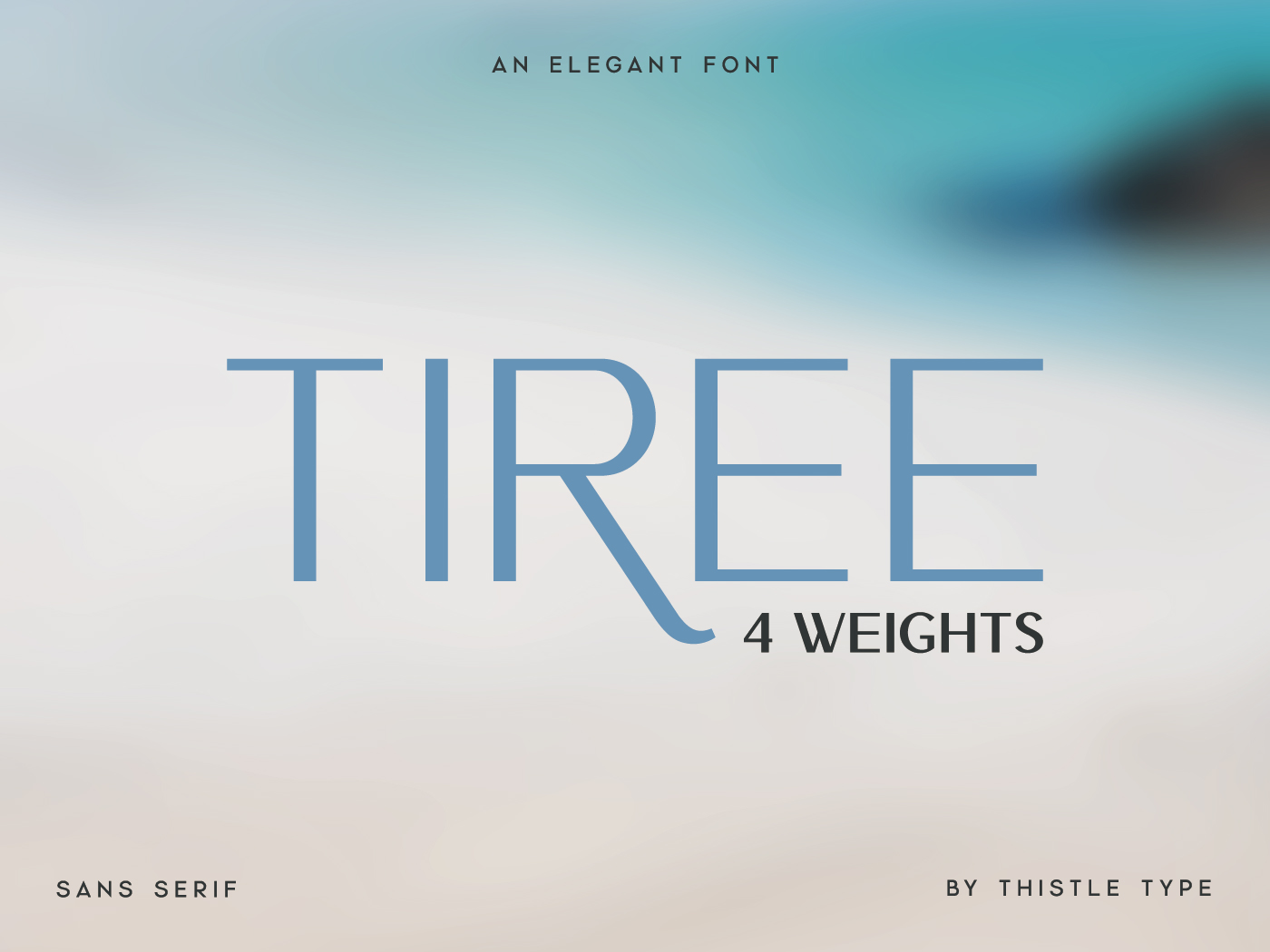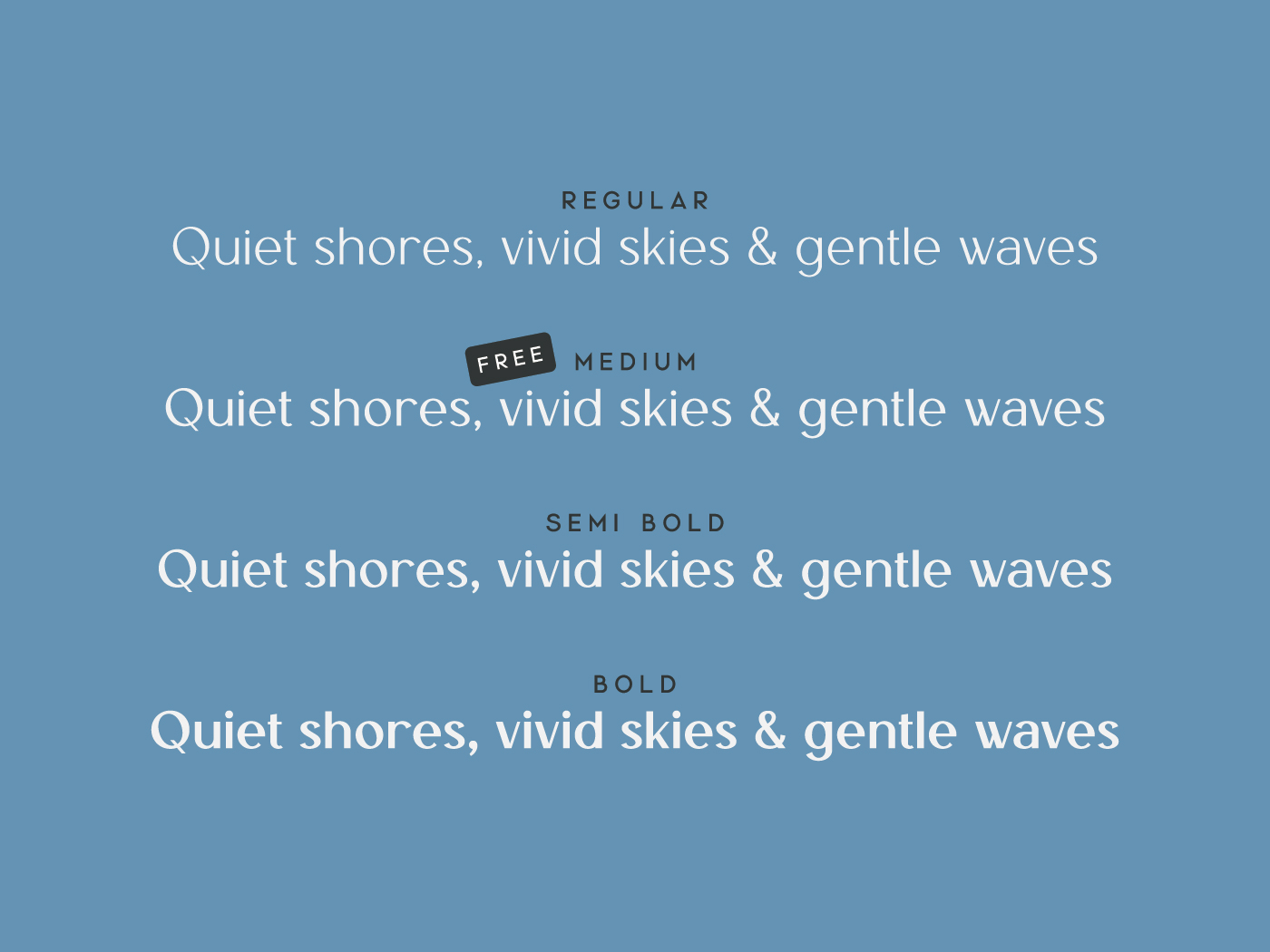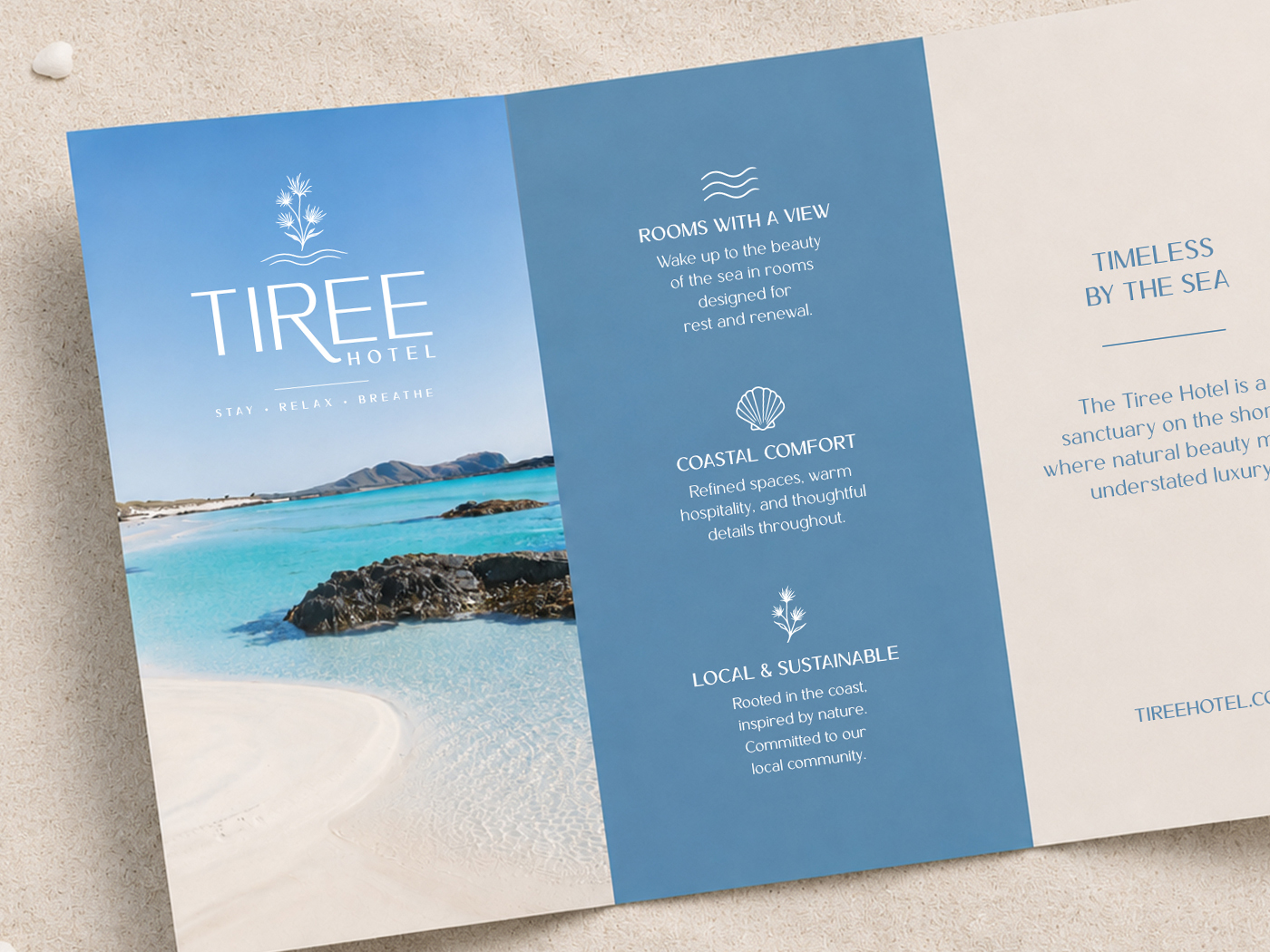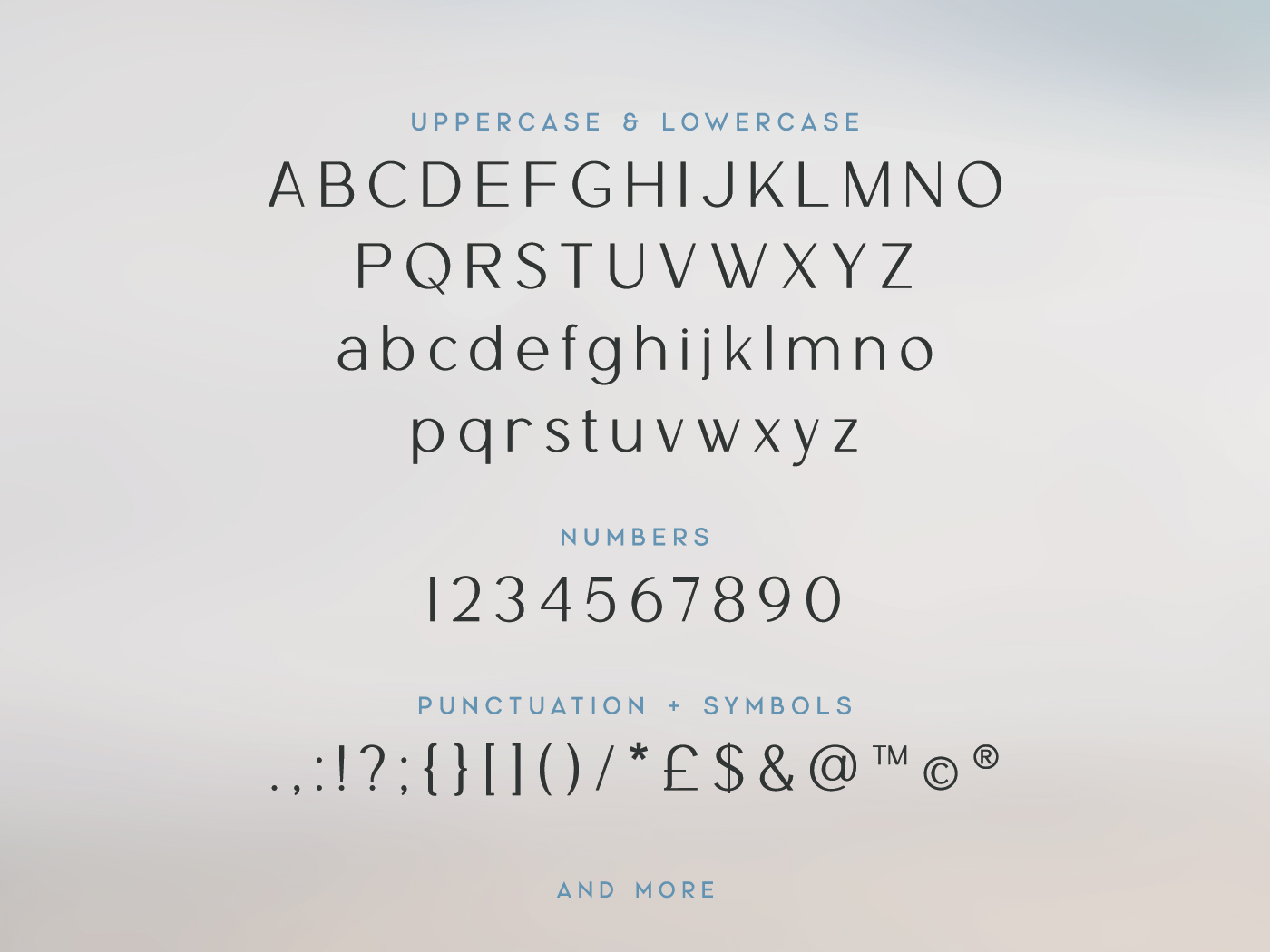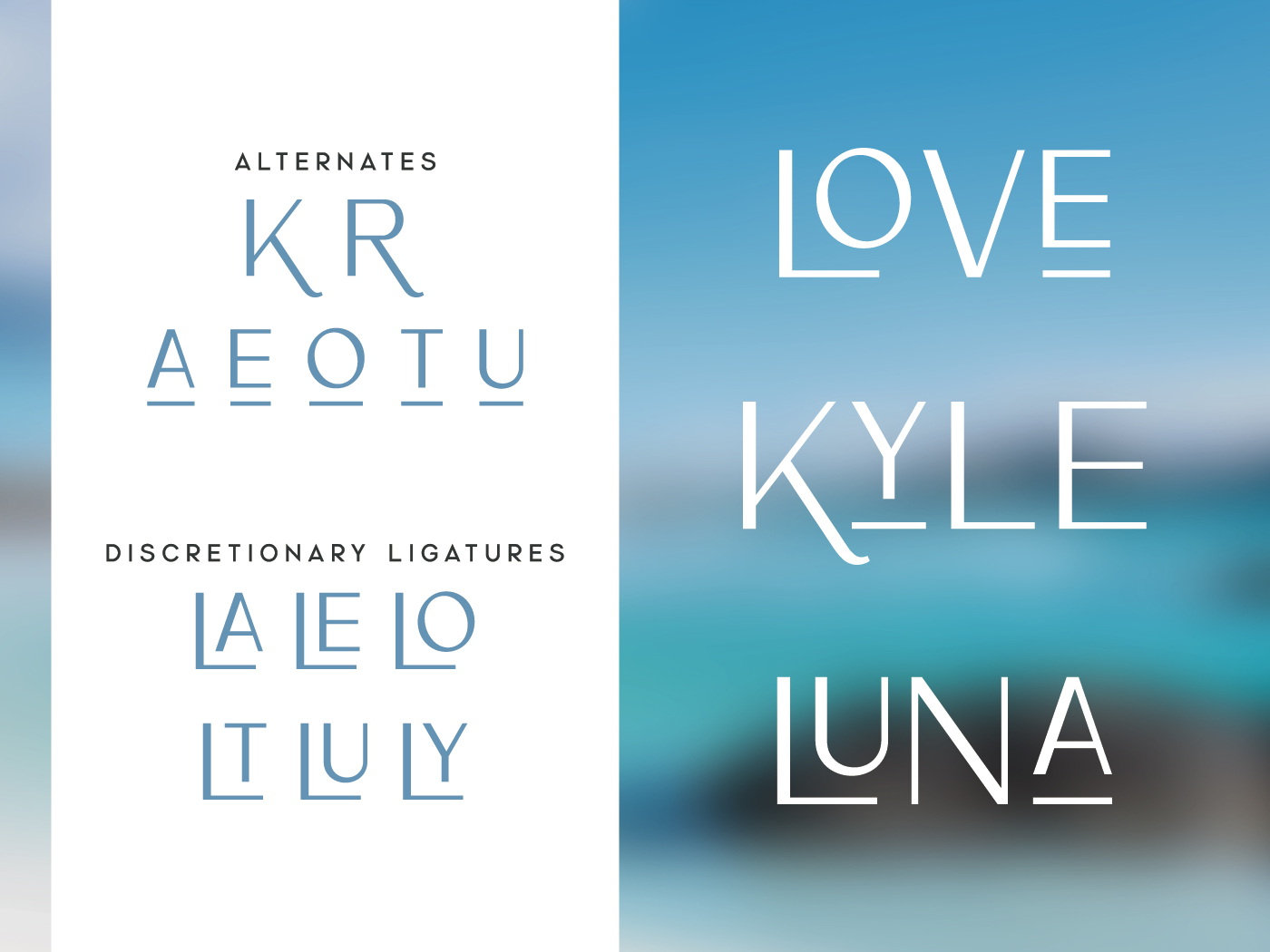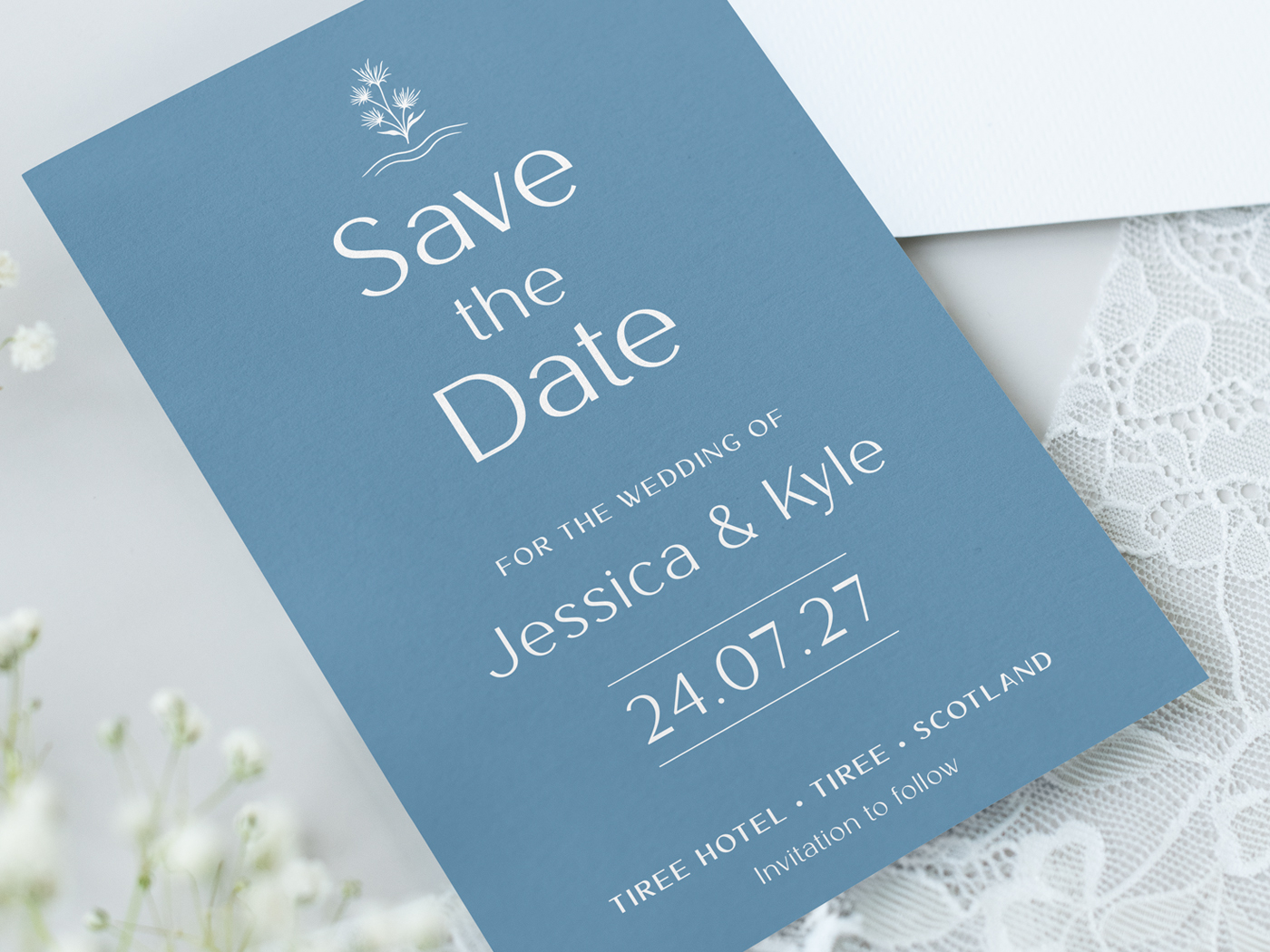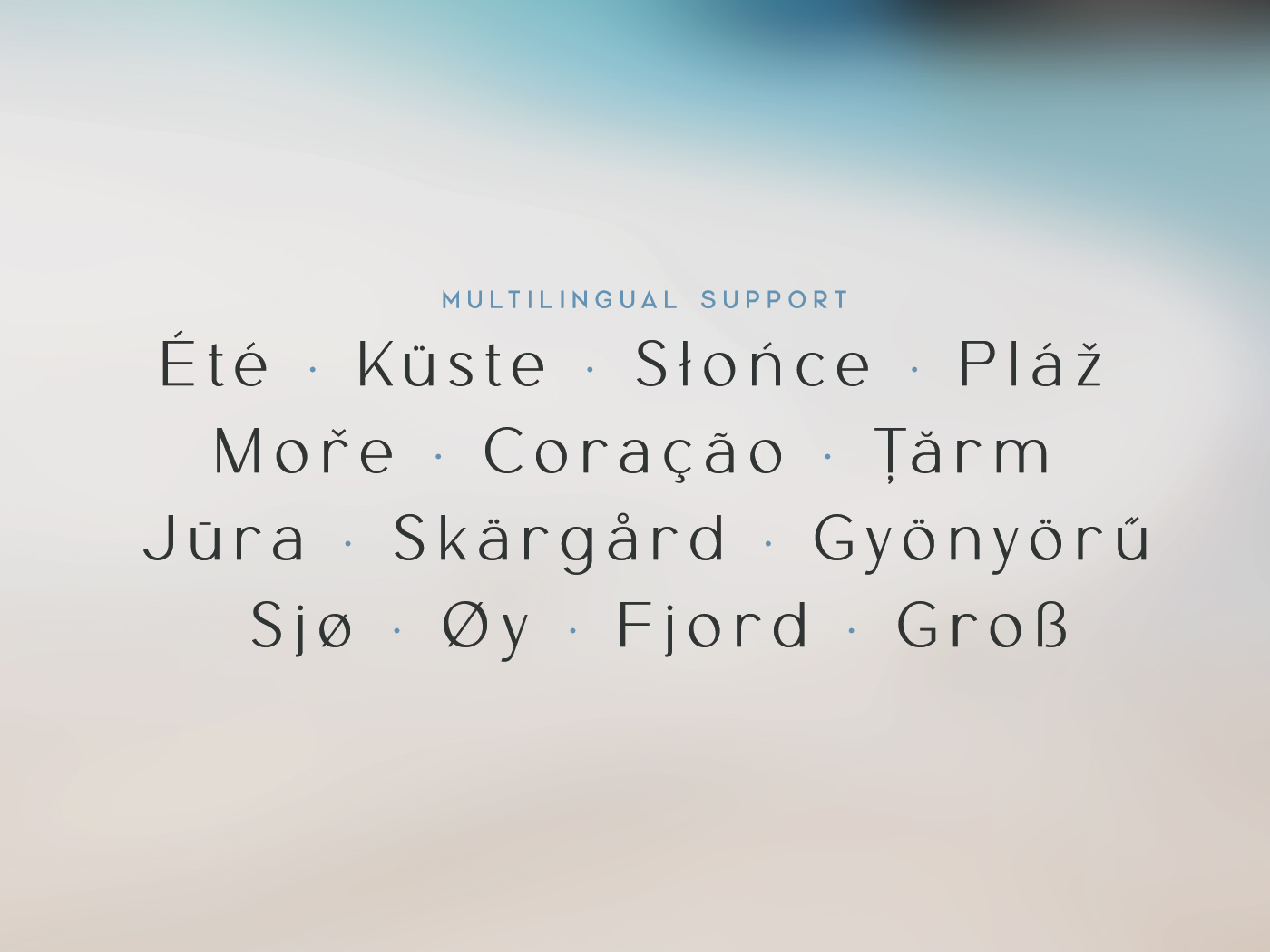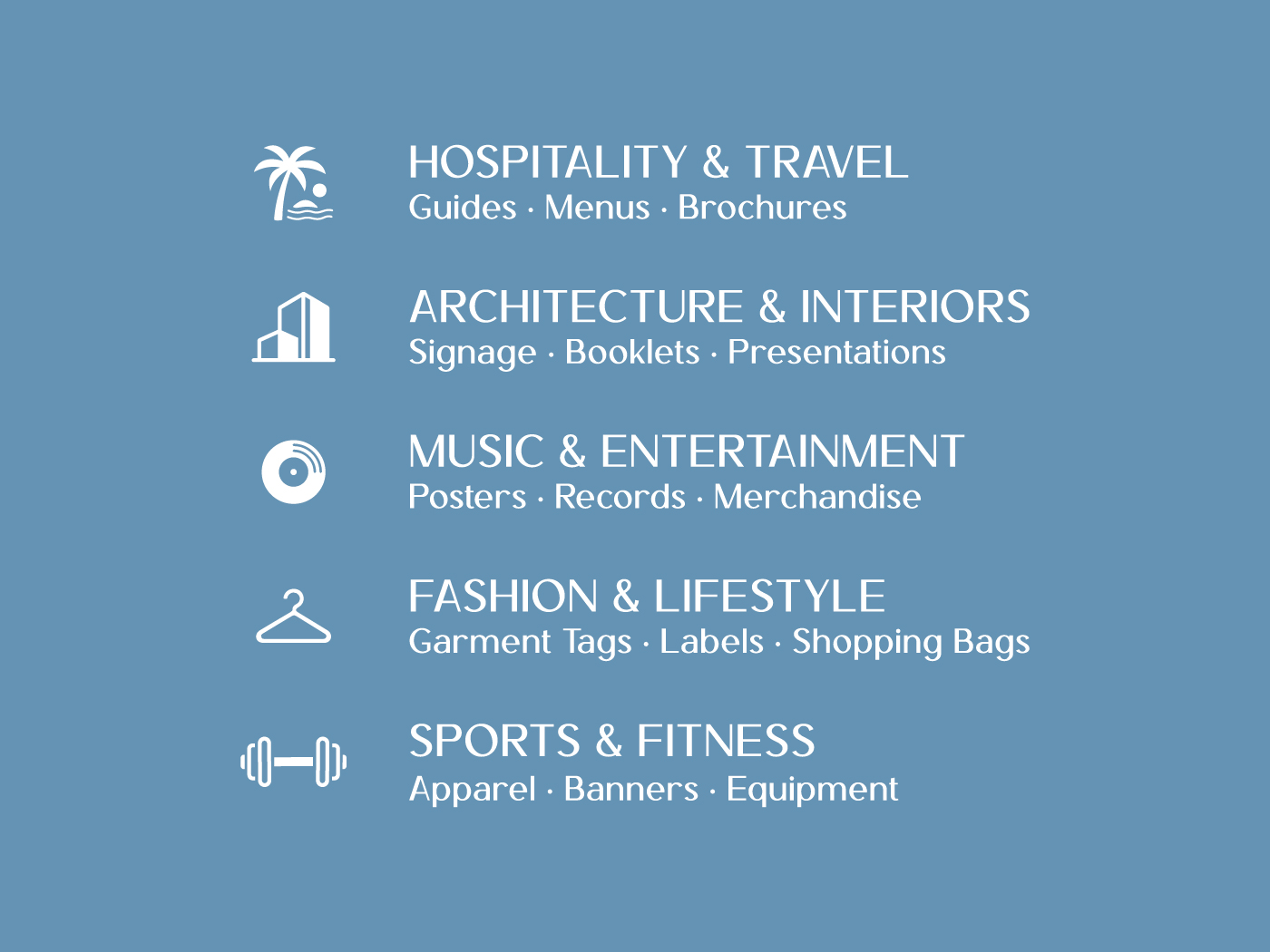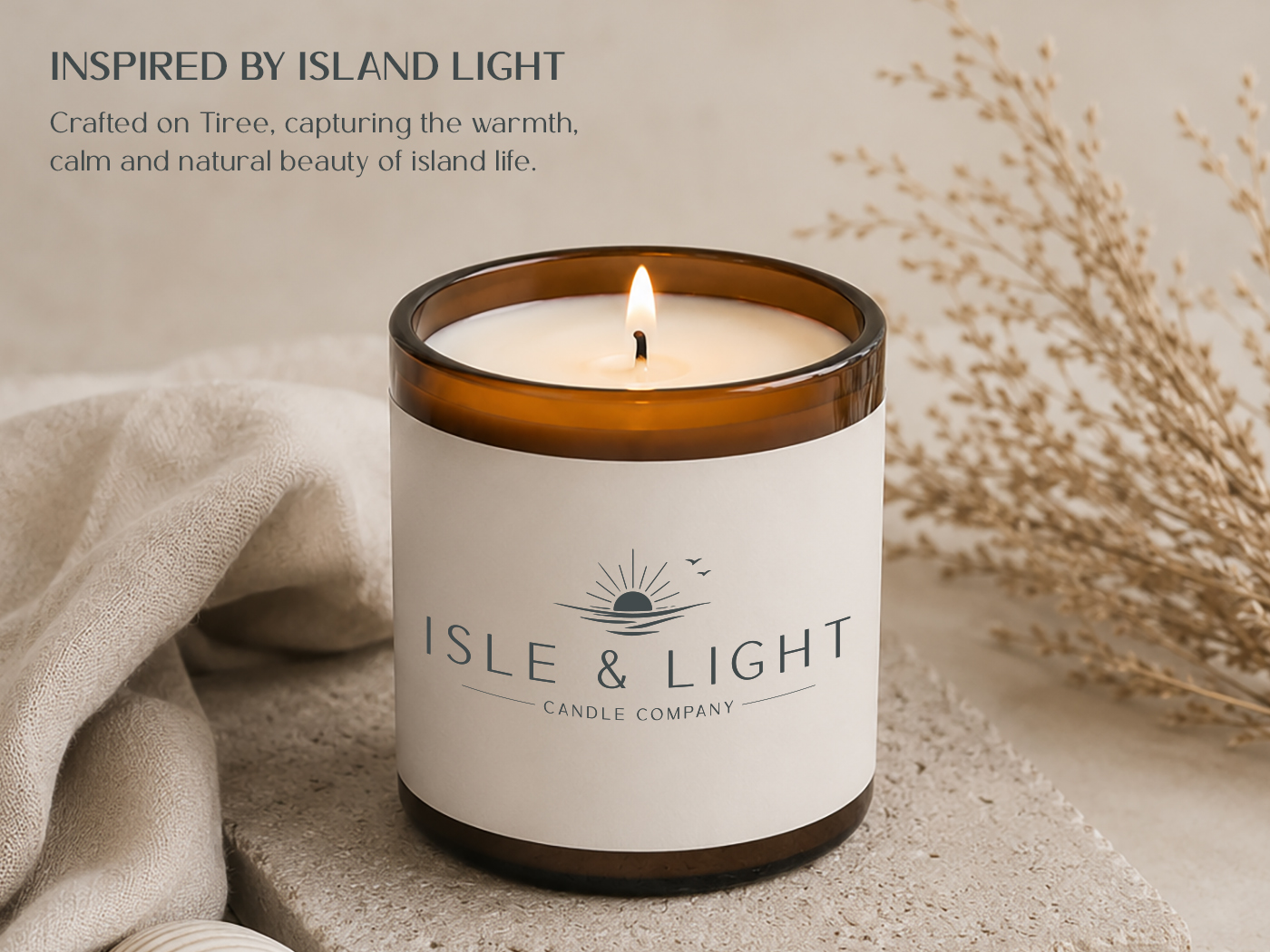
Tiree is an elegant san serif font inspired by the white beaches and wide open skies of Scotland’s western isles. Designed for timeless typography, it’s equally at home on wedding stationery, luxury branding, brochures, editorial layouts, and sophisticated logos.
Its graceful letterforms balance classic proportions with subtle contrast, creating a typeface that feels calm, refined, and effortlessly elegant. Inspired by the quiet beauty of the Isle of Tiree, it brings a natural warmth to designs without feeling overly decorative.
Tiree also includes a collection of discretionary ligatures, giving you the freedom to add extra character to headlines, logos, and names, while keeping body text clean and highly readable.
- Elegant san serif design with a timeless, refined feel
- Perfect for wedding stationery, luxury branding, brochures, editorials, and invitations
- Includes beautifully crafted discretionary ligatures
- Available in Regular, Medium (FREE), Semi Bold and Bold weights
- Supports European languages